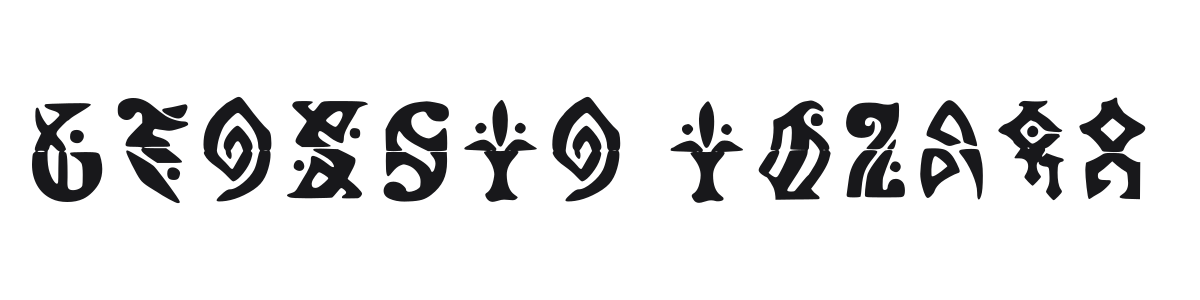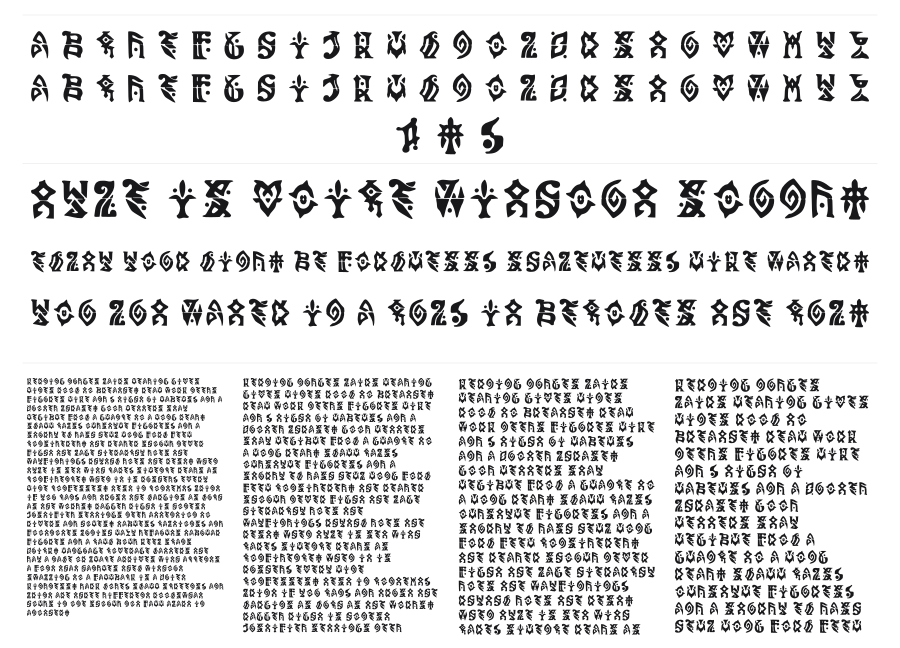
Genshin Impact
Genshin Impact is a decorative display typeface extracted from the popular open-world RPG of the same name. Each character is thick and bold with elaborate cutout details and inset ornaments, evoking ancient runes and alchemical symbols more than conventional Latin letters. It exists almost entirely in the realm of fantasy game branding and thematic display work.